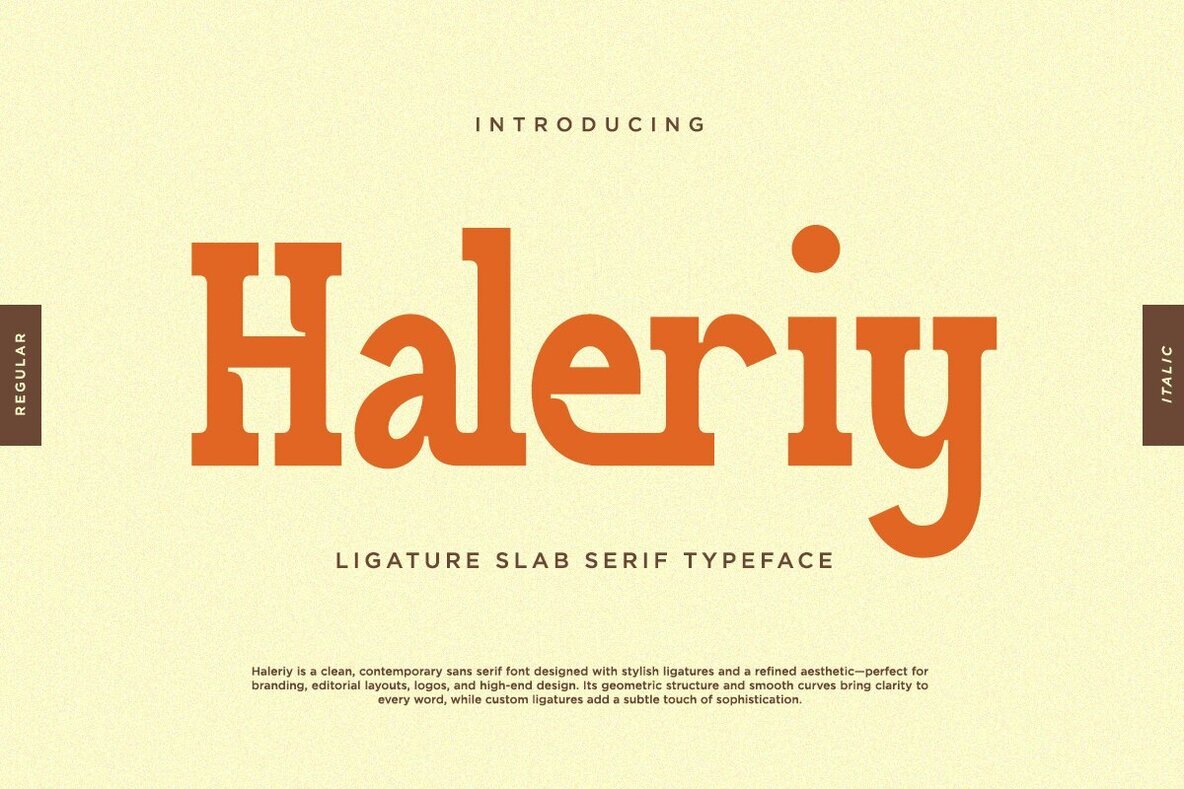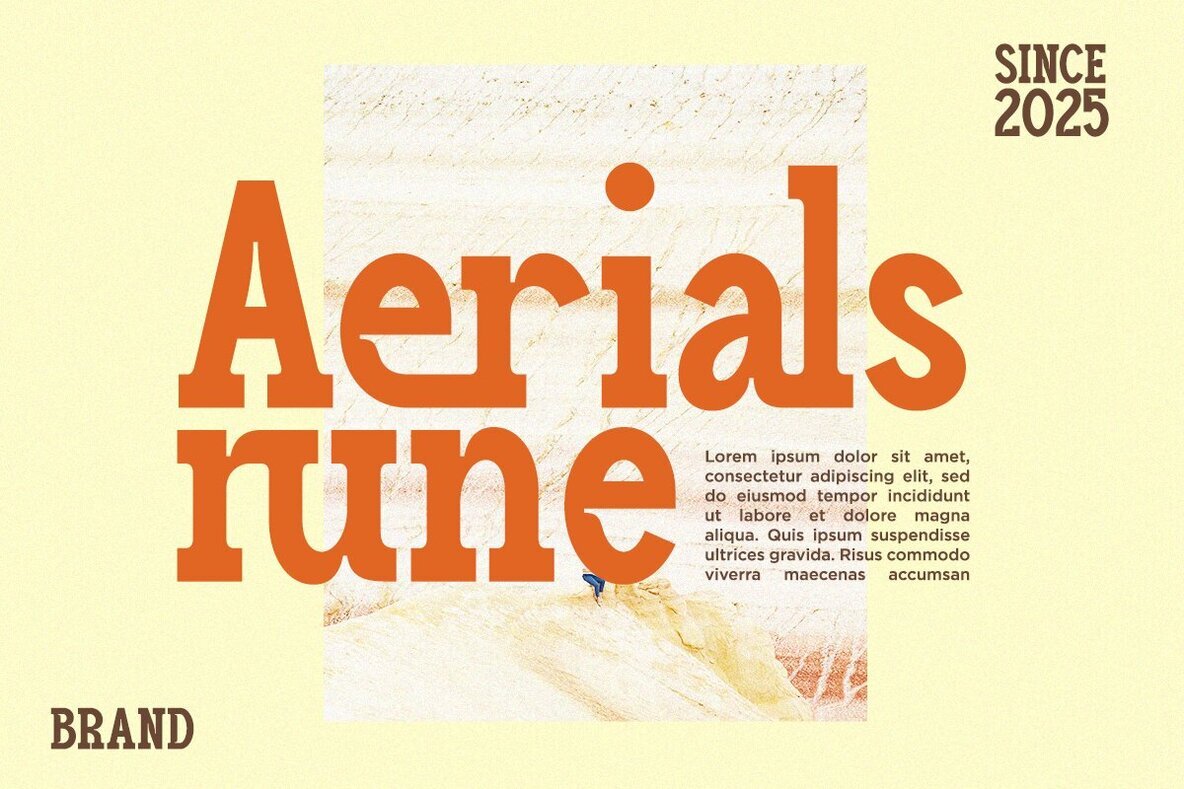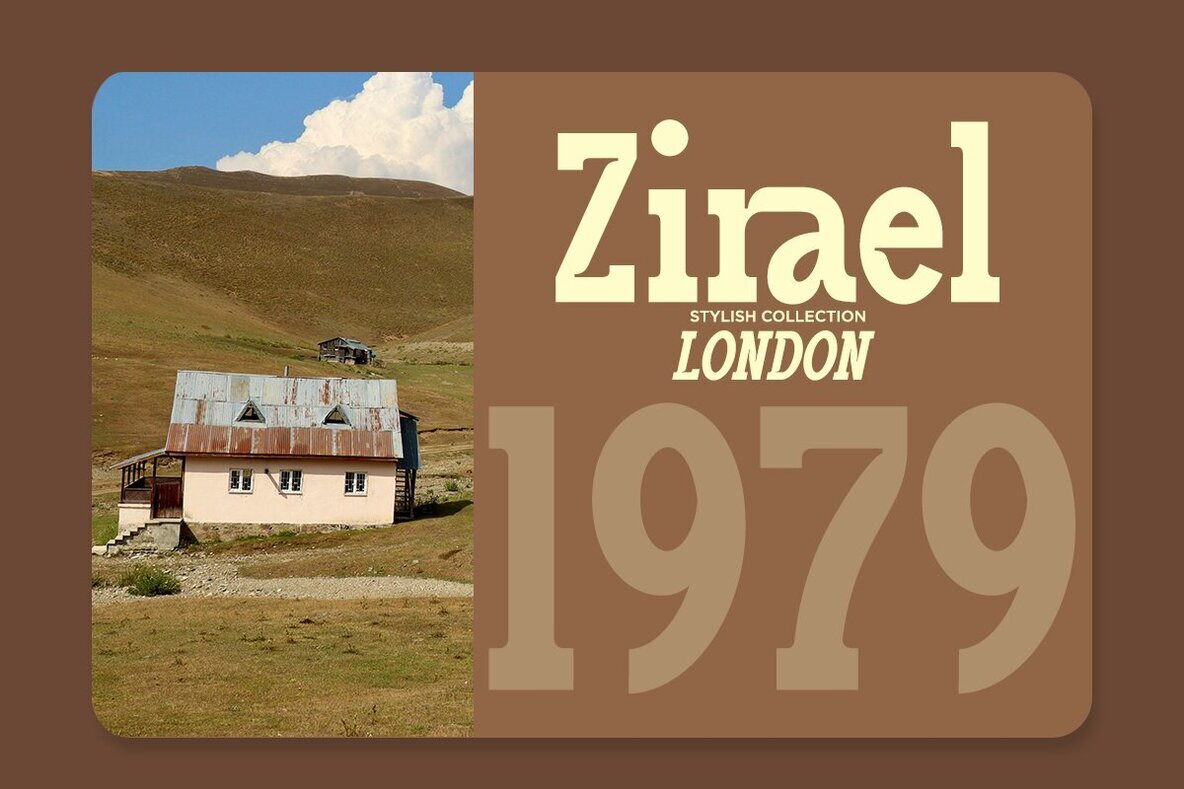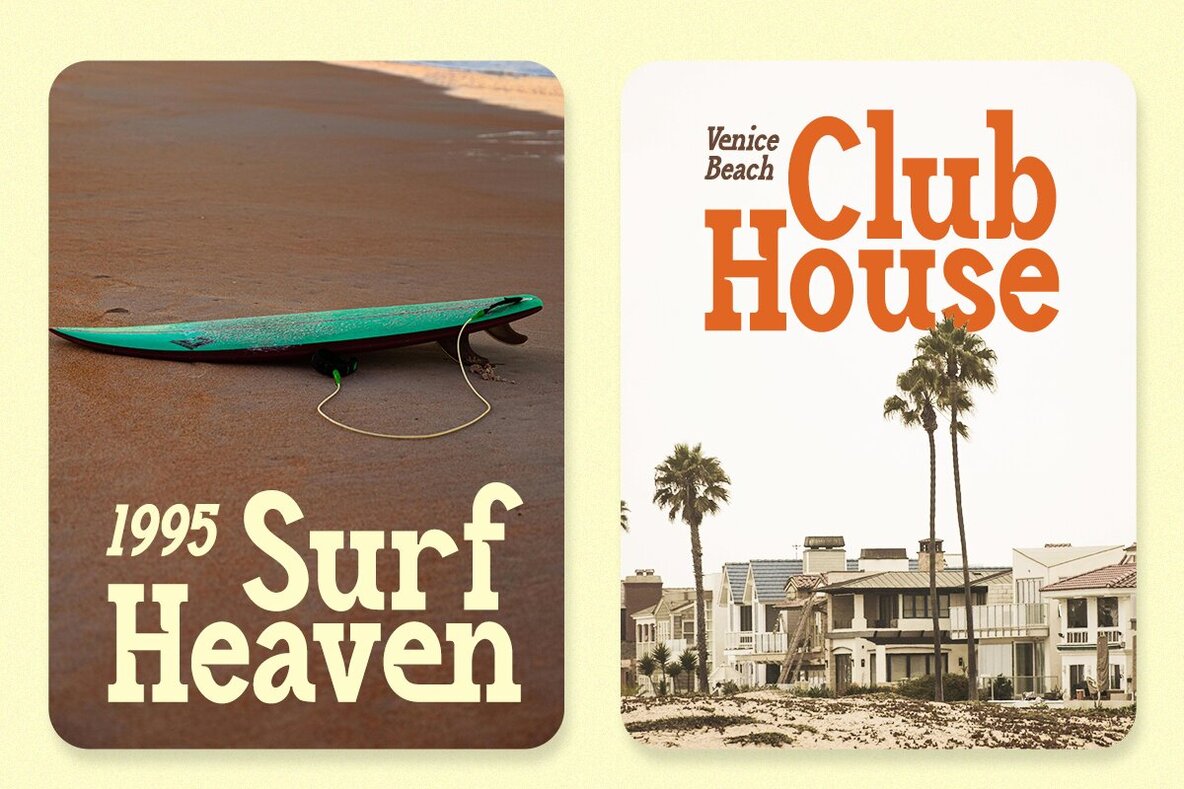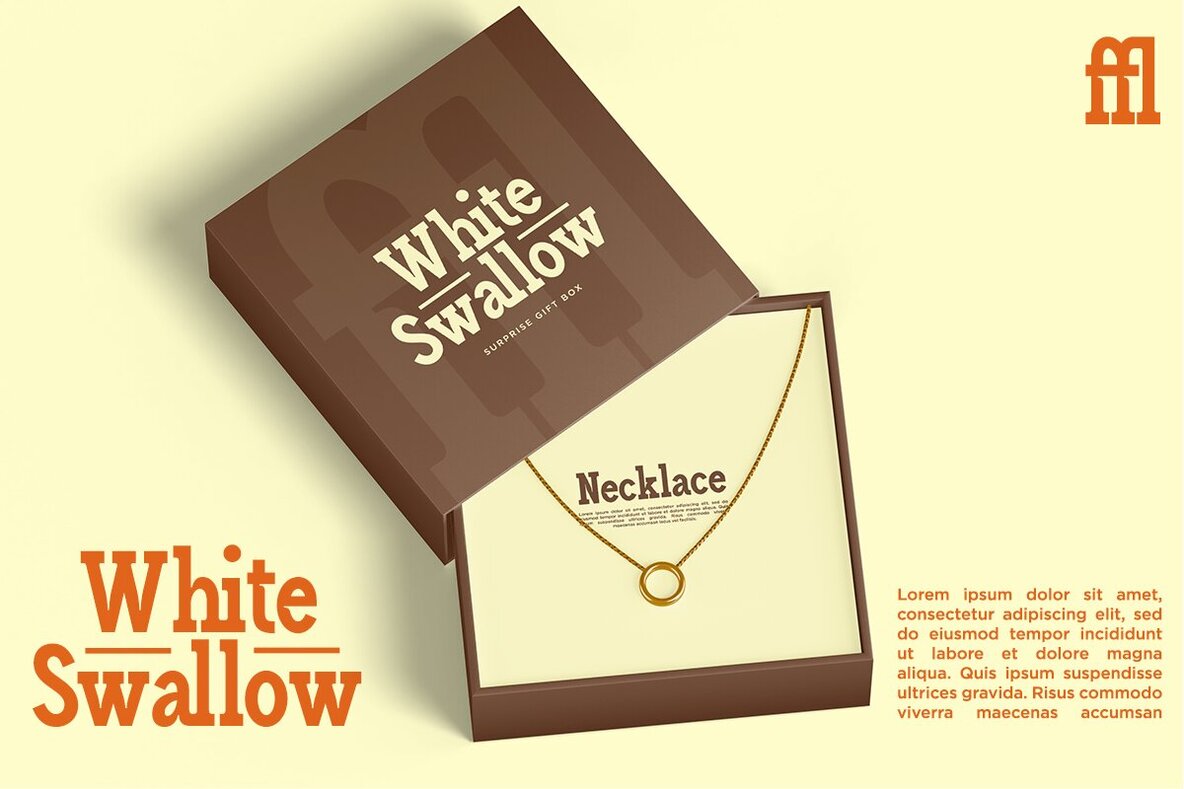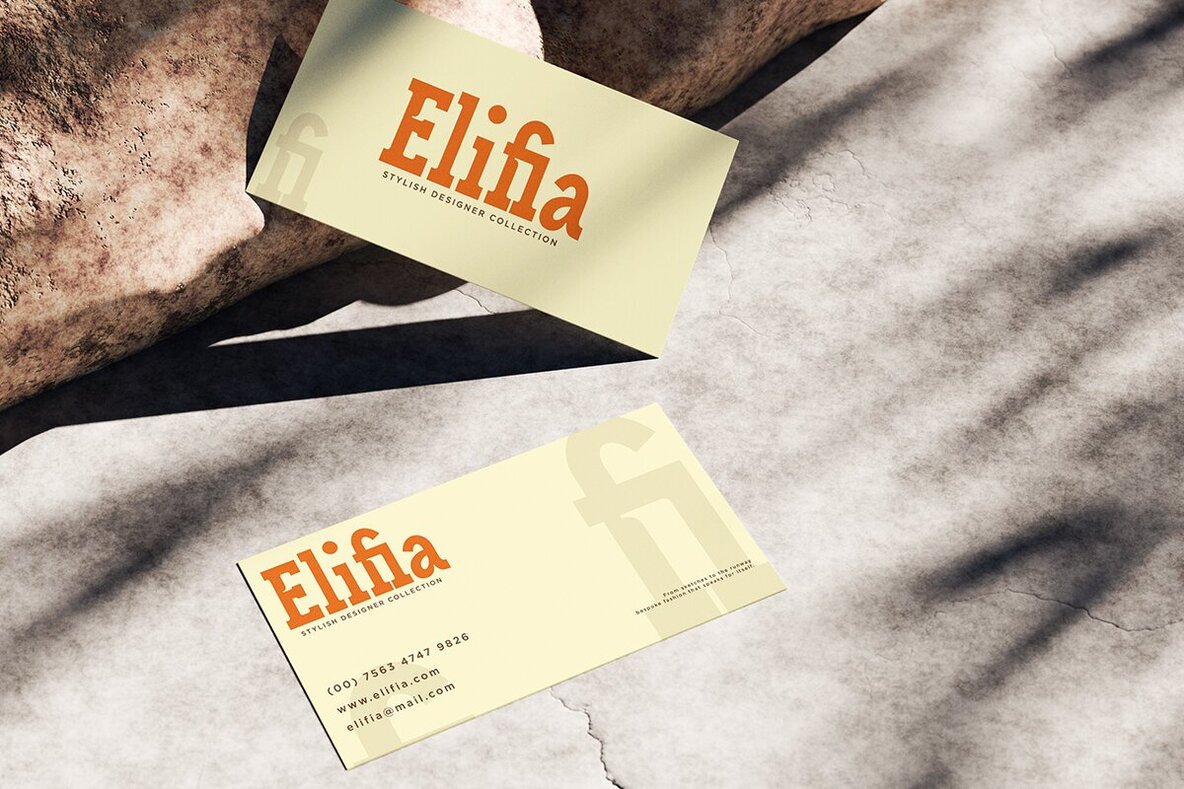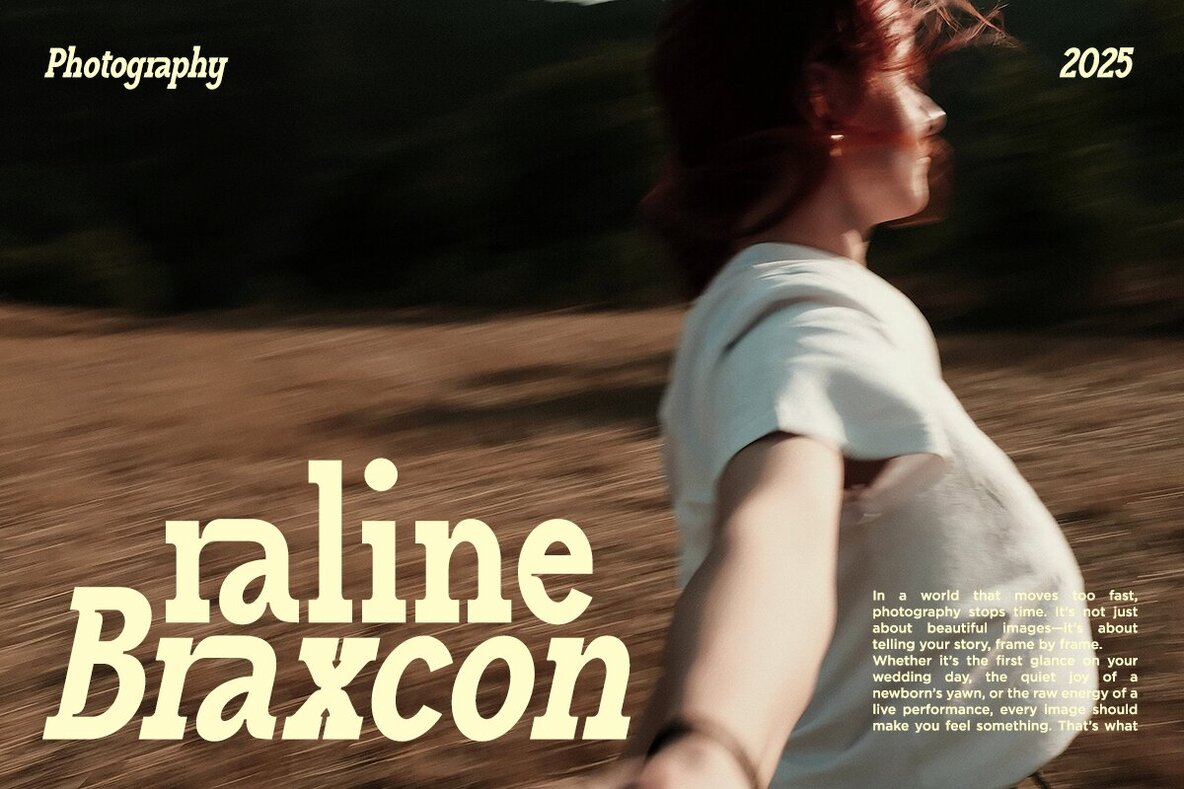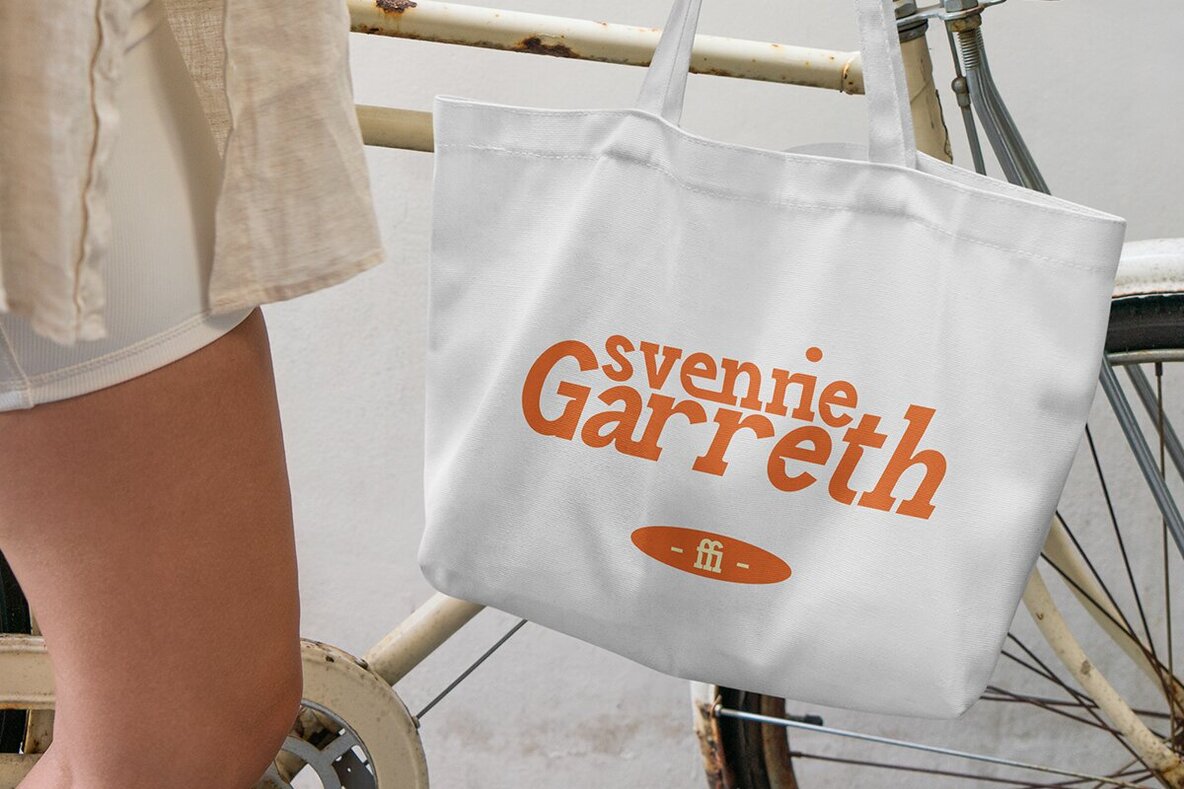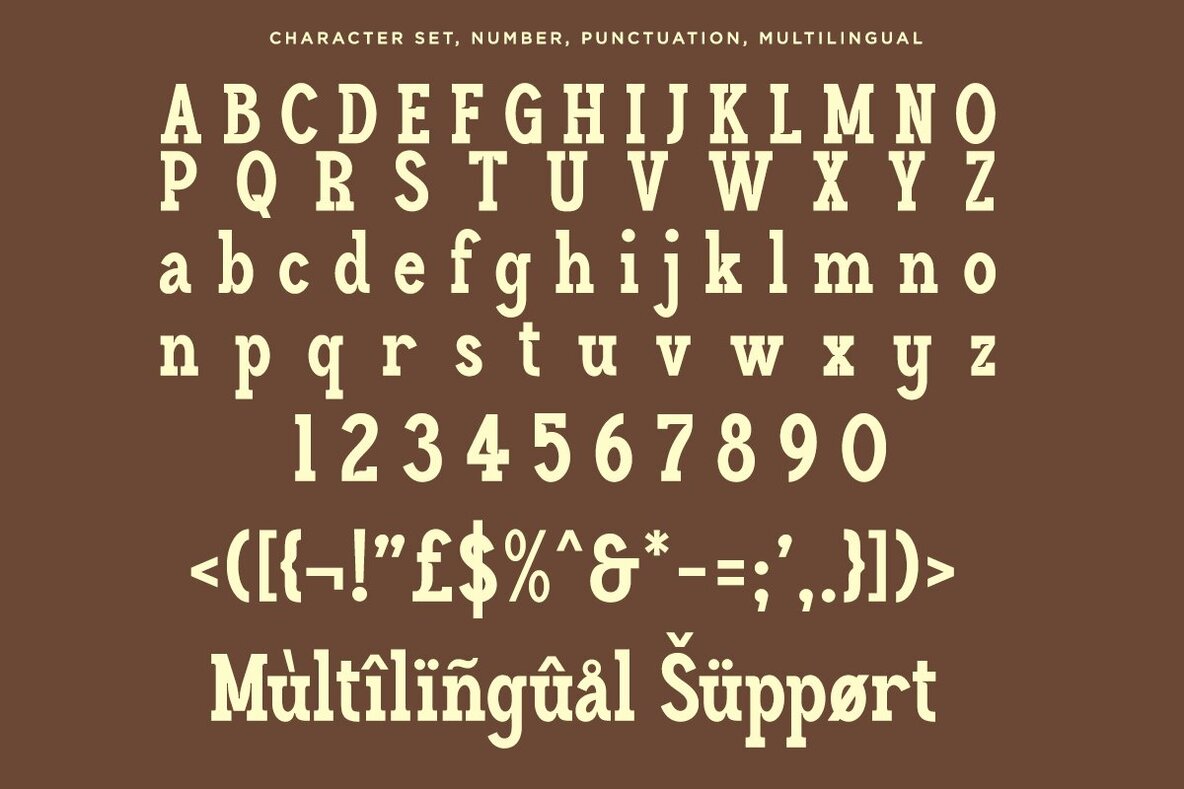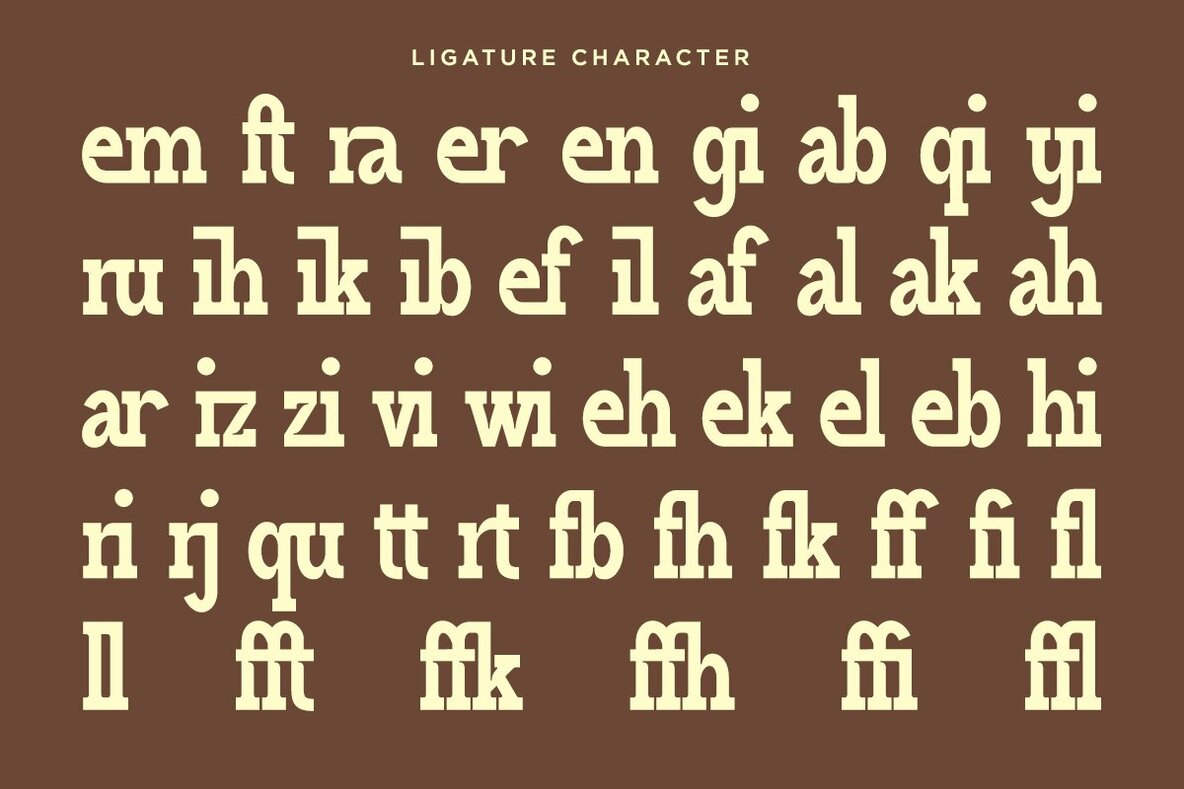
Haleriy Font
Haleriy is a slab serif font designed for those who appreciate the blend of classic strength and modern typography. Its sturdy letterforms and inktrap touches give every project a distinct character, making it an excellent choice for headlines, branding, logos, packaging, and editorial layouts. This font stands out with its refined slab serifs and robust structure, bringing impact to any visual identity or publication. The inclusion of ligatures and stylistic sets extends creative possibilities, allowing you to fine-tune your typography for unique results. Haleriy supports multiple languages, ensuring global versatility for designers working across markets.Haleriy: Vintage Slab Serif with Inktrap Details